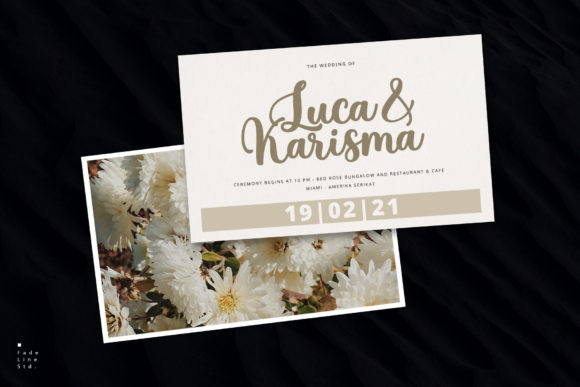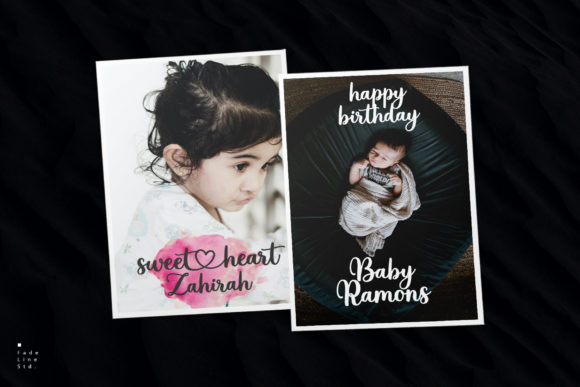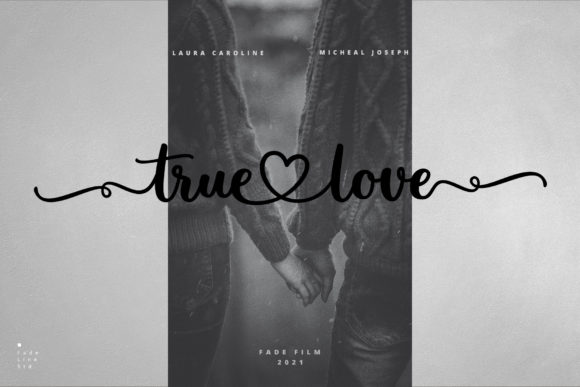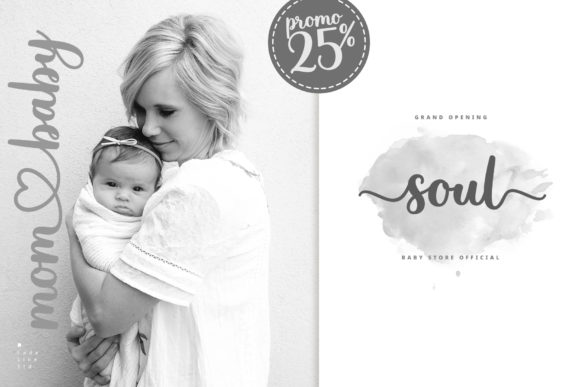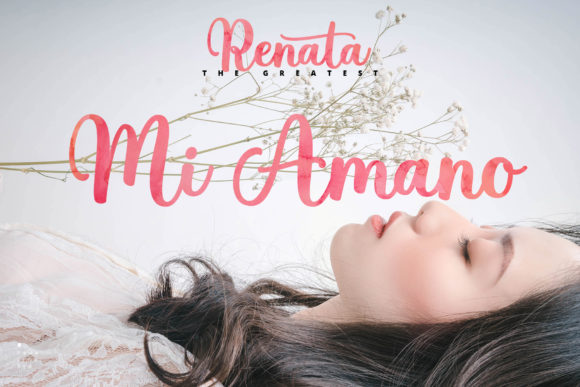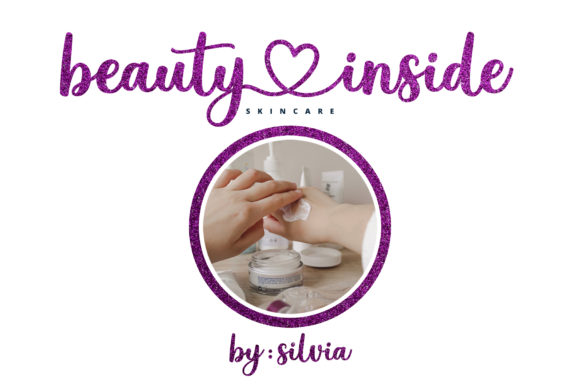
Introduction to Malovely Font
Malovely is a graceful and sweet handwritten font.
Its distinct and well rounded letters make this font a masterpiece Fall in love with its incredibly versatile style and use it to create spectacular designs.